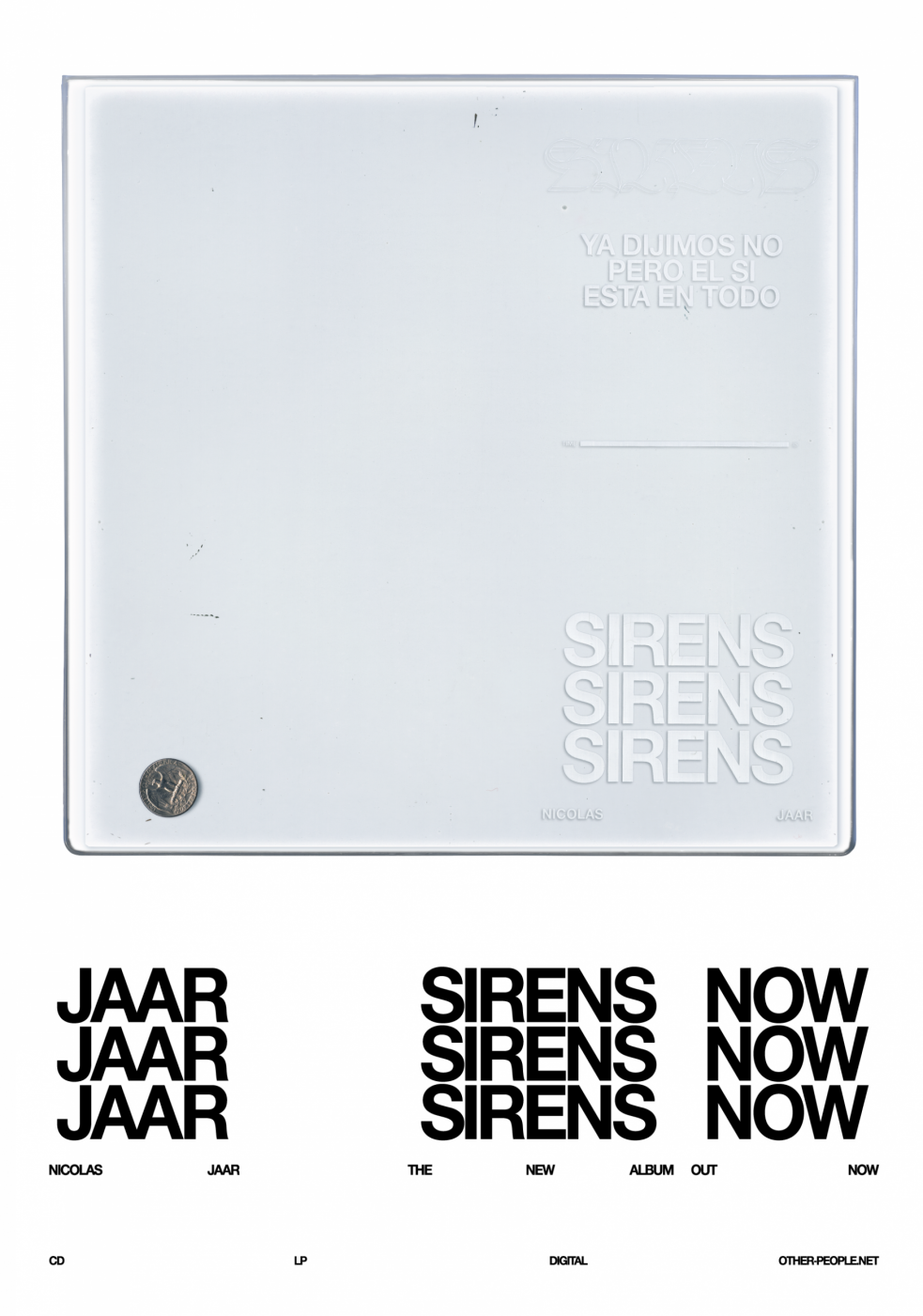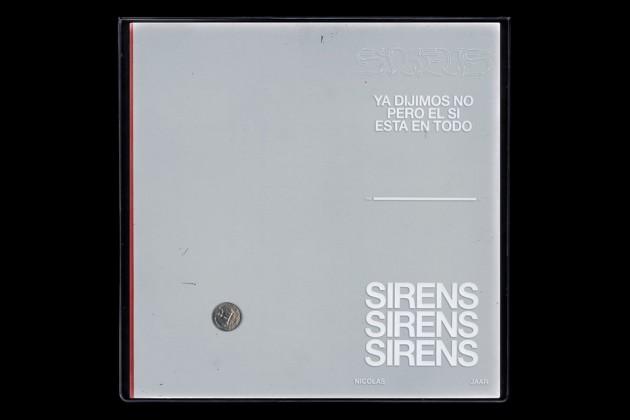
Anyone recognize this font? Sirens. David Rudnick artwork
Is anyone able to tell me which font has been used on this artwork (by David Rudnick).
I'm talking about the 'Coolvetica'-ish one.
It's custom I'm afraid. For Sirens and the related materials I cut a variant that we used across the designs, its technical name is Helvetica Matta (coincidentally after Gordon Matta Clark). Nico and I were trying to find the right voice for the material and I wanted something that felt 70s NYC downtown conceptual art, but in its last breaths, turning towards the kind of glamorous despair of the 80s, when Alfredo would do his installation in Times Square that would be the basis of the iconic picture that we used under the scratch-off on the cover. That feeling of an America where the lie was on its knees and the bubble was about to burst...
A few more examples from the related work can be seen here.